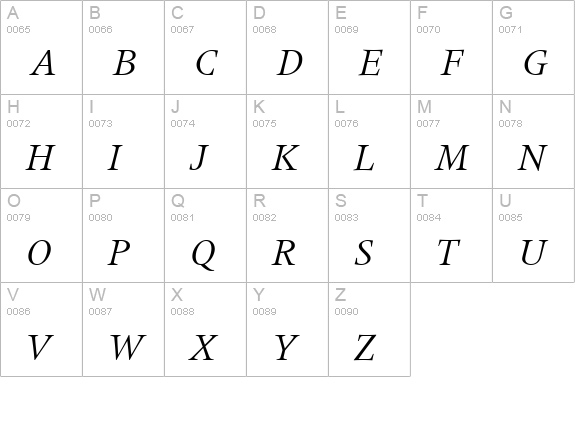
Coherent SSi Italic is a distinctive, italic variant in the Coherent typeface family \xE2\x80\x94 well suited to design and typography projects.
Coherent SSi Italic is a modern and stylish font that exudes sophistication and elegance. Its sleek and slanted design adds a touch of flair to any project, making it perfect for branding, advertising, and design work. The italicized characters flow seamlessly, creating a sense of movement and dynamism. What sets Coherent SSi Italic apart is not only its striking appearance but also the fact that it is available for free download at FontsMarket.com. This means that anyone can easily access and use this stunning font for their creative endeavors without any cost. Don't miss out on the opportunity to elevate your designs with Coherent SSi Italic - download it for free today!